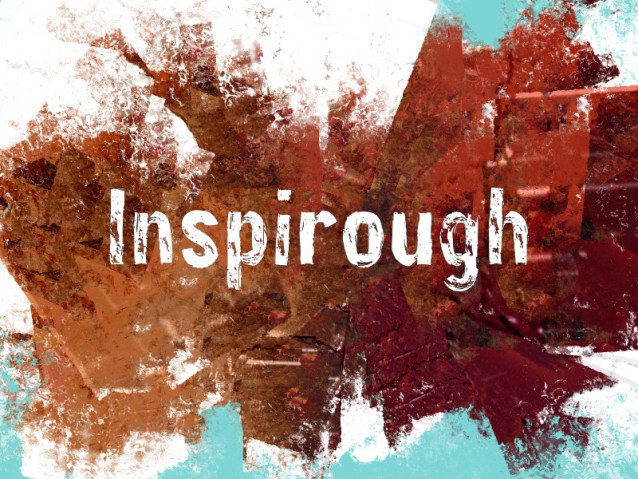
Inspirough Font
Inspirough Font is a simple and modern display font suitable for quotes, logos, headings, titles, and many more. Use it on any of your creative projects, and your designs will become outstanding!